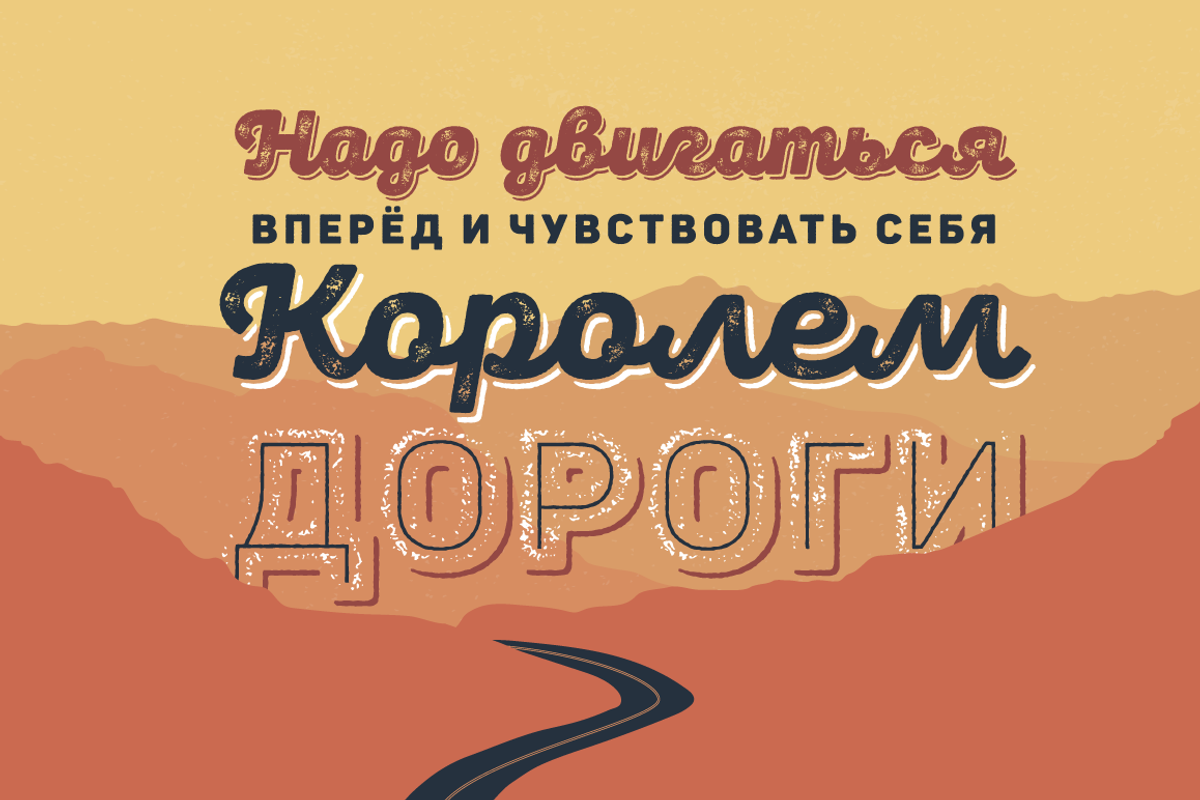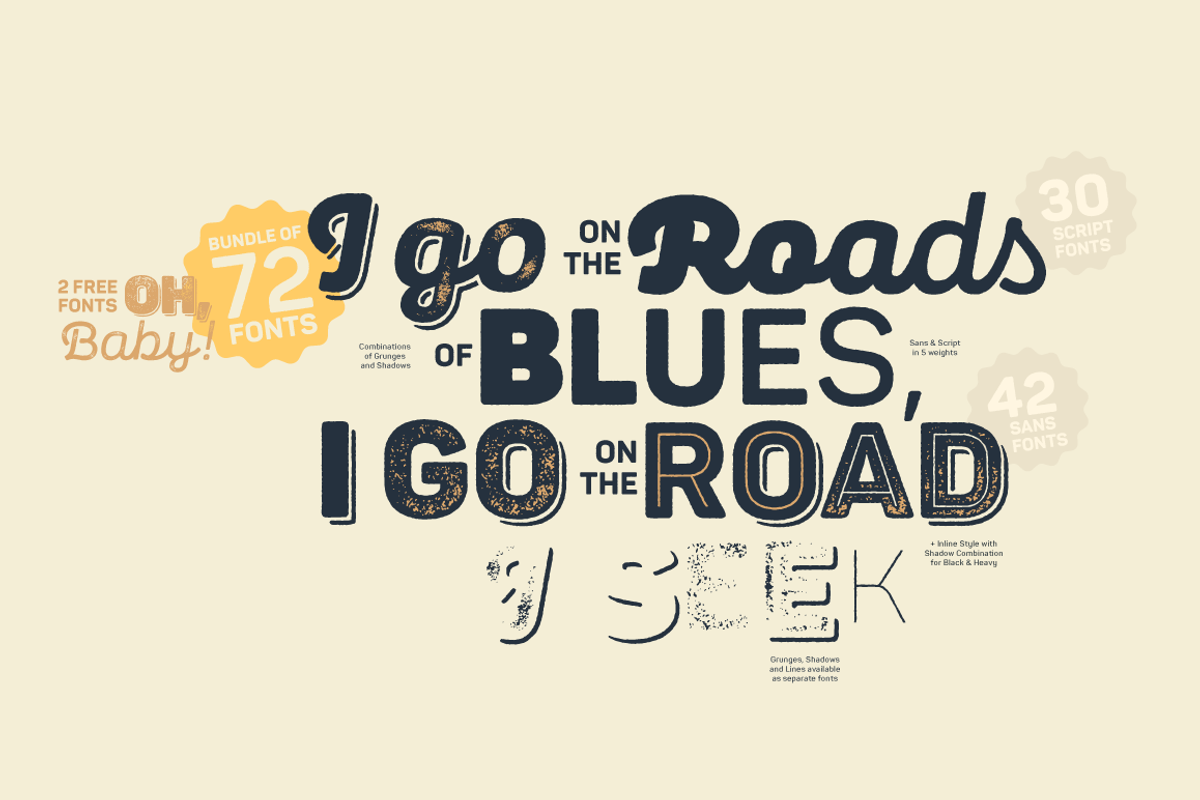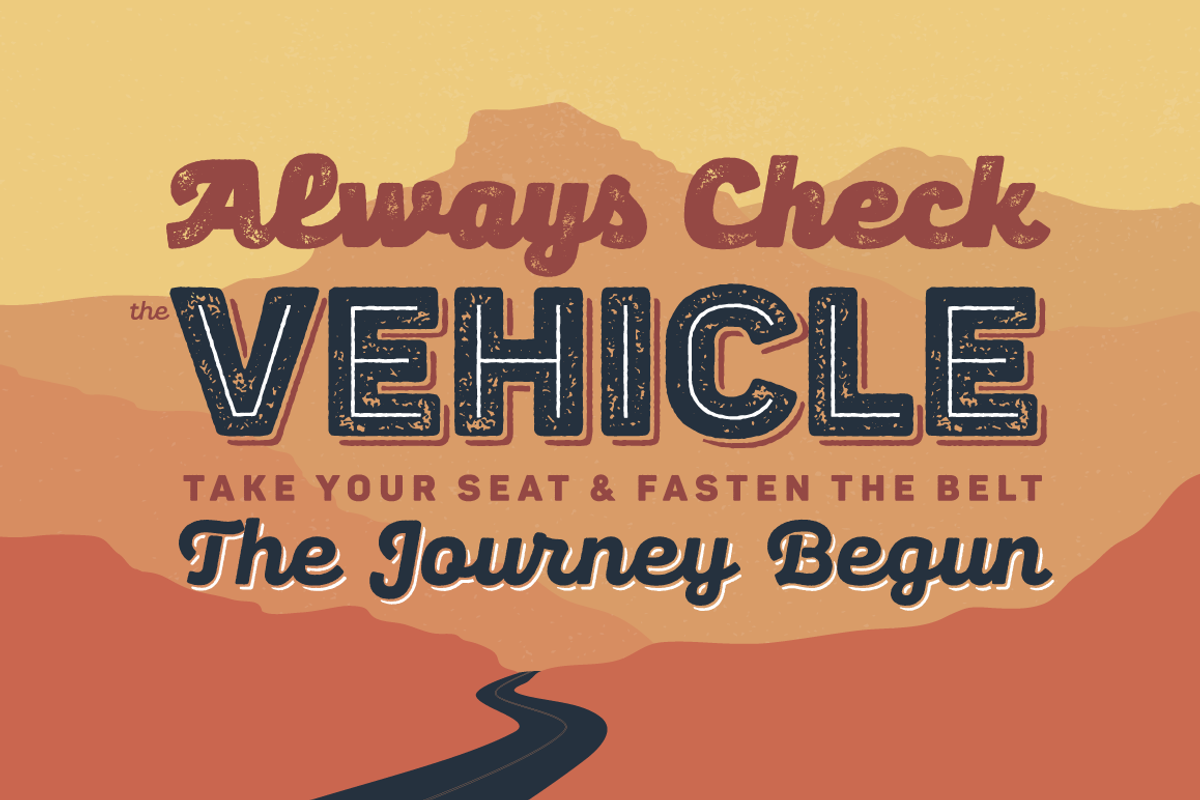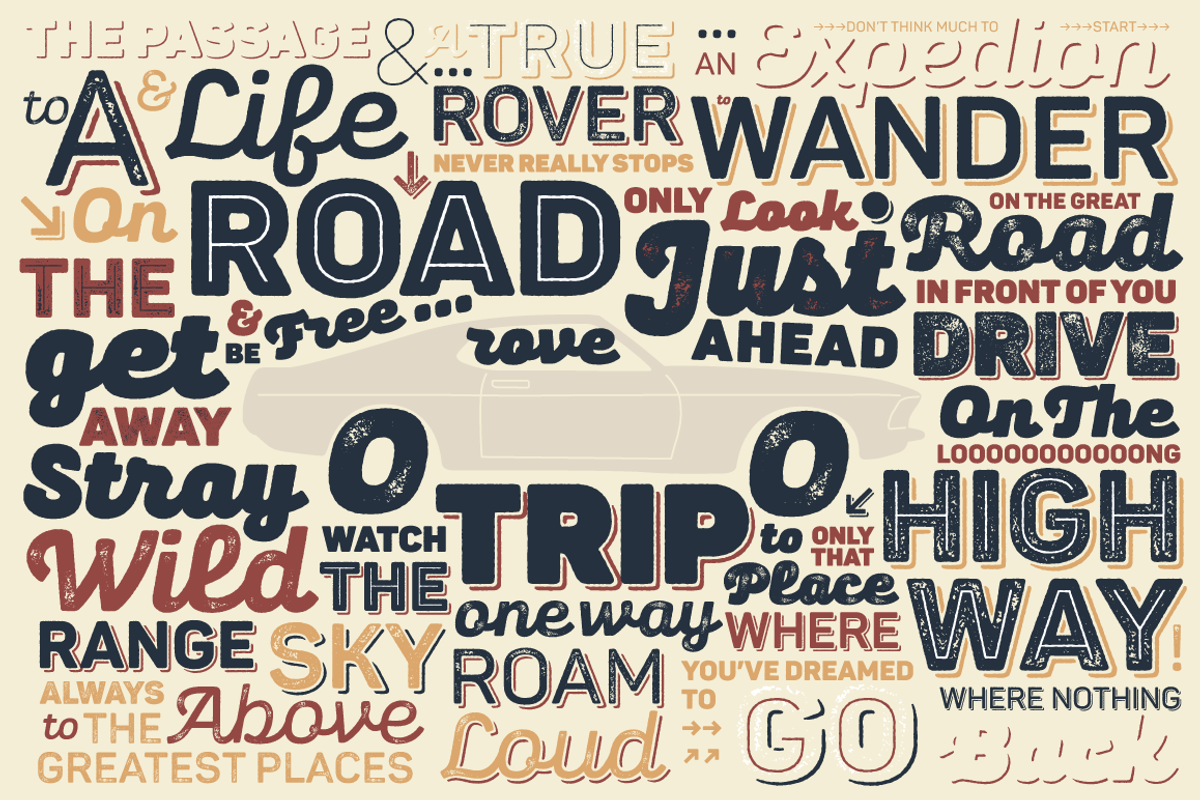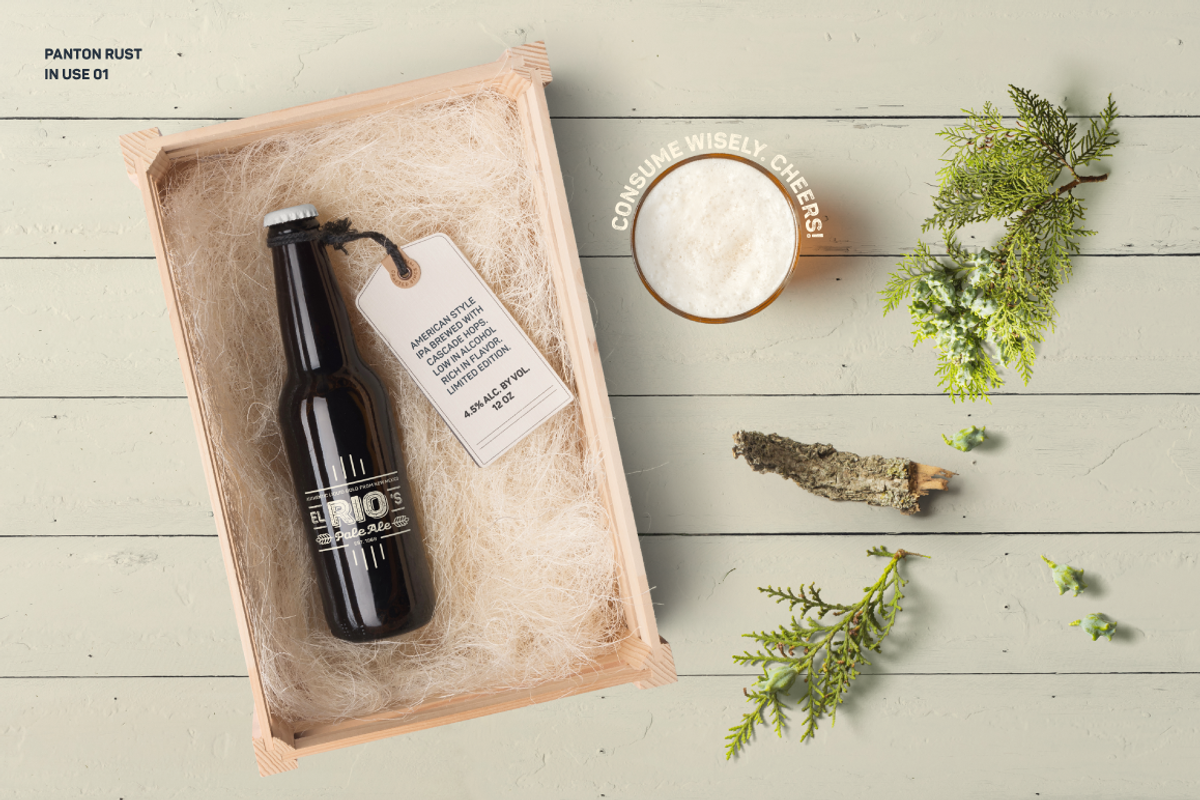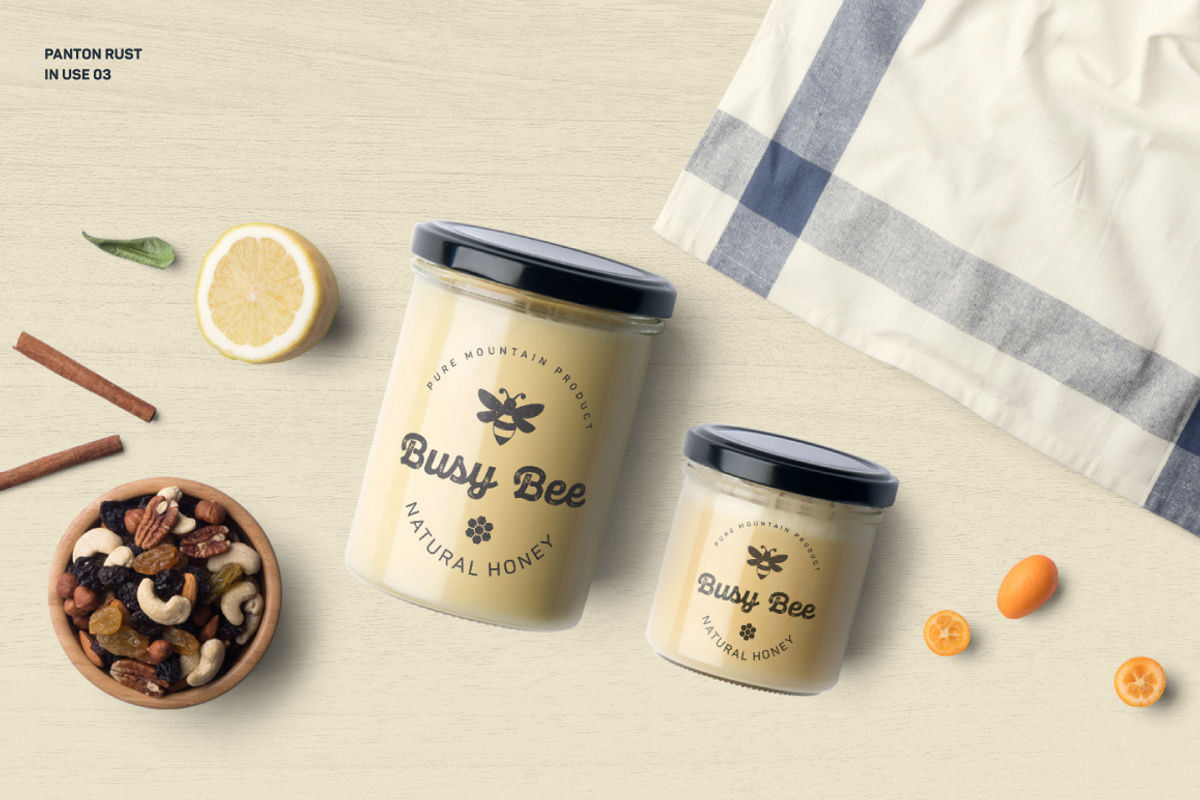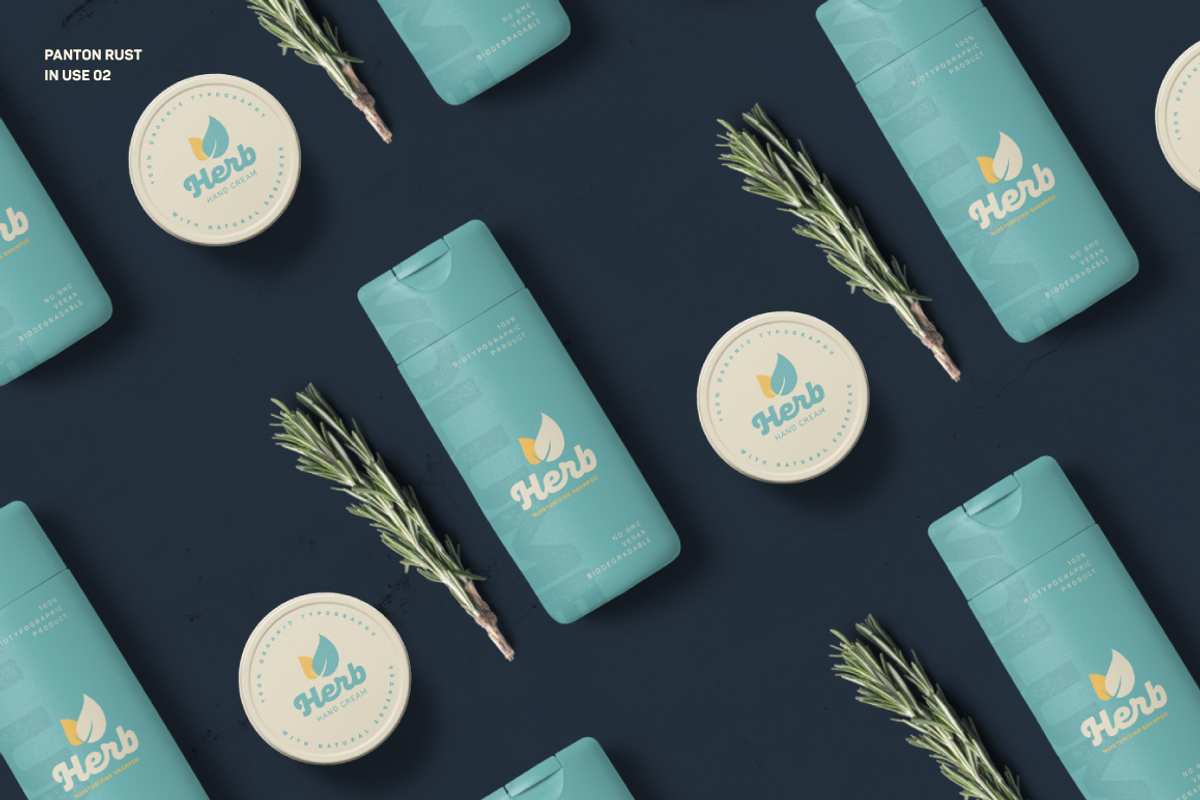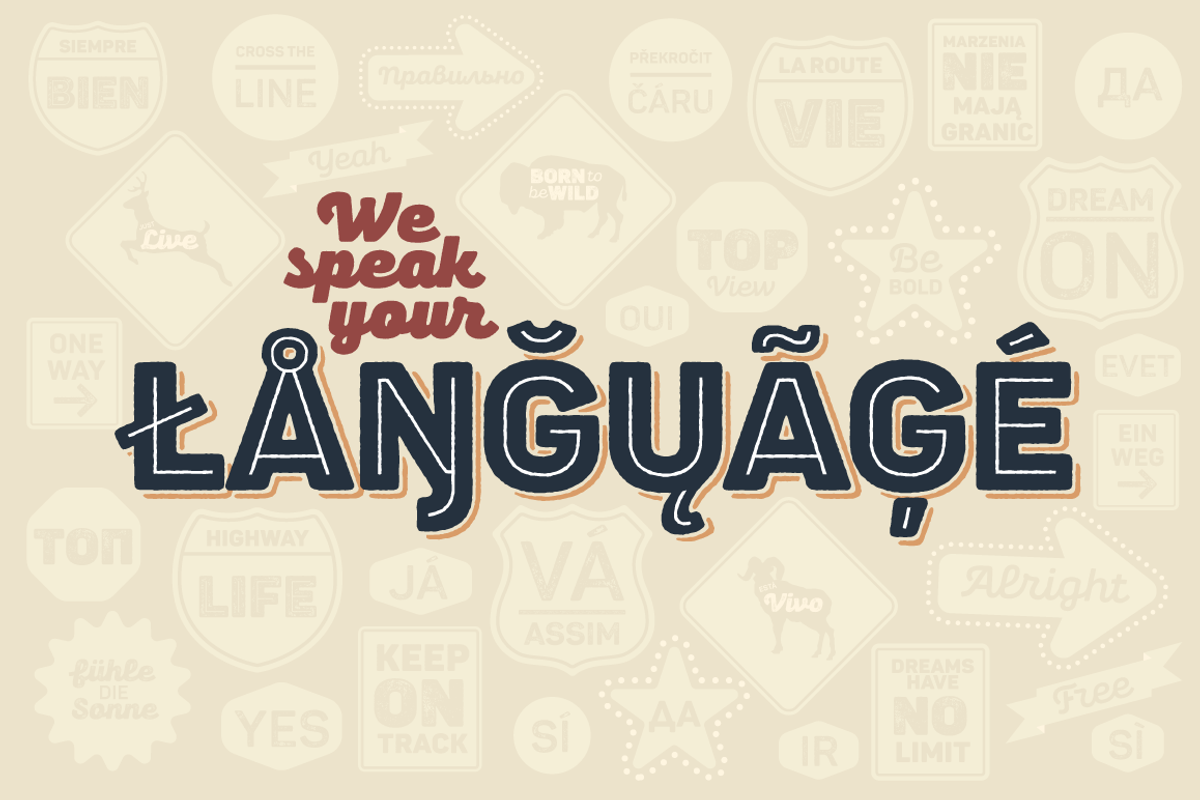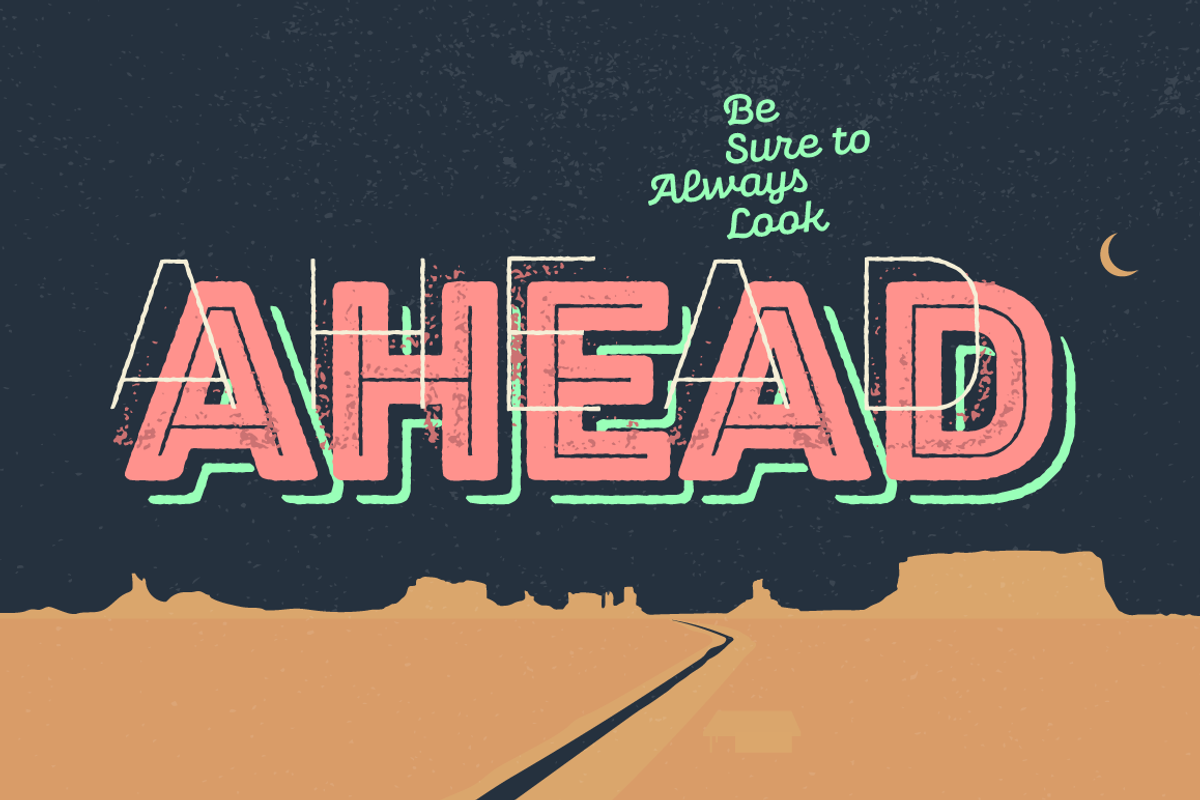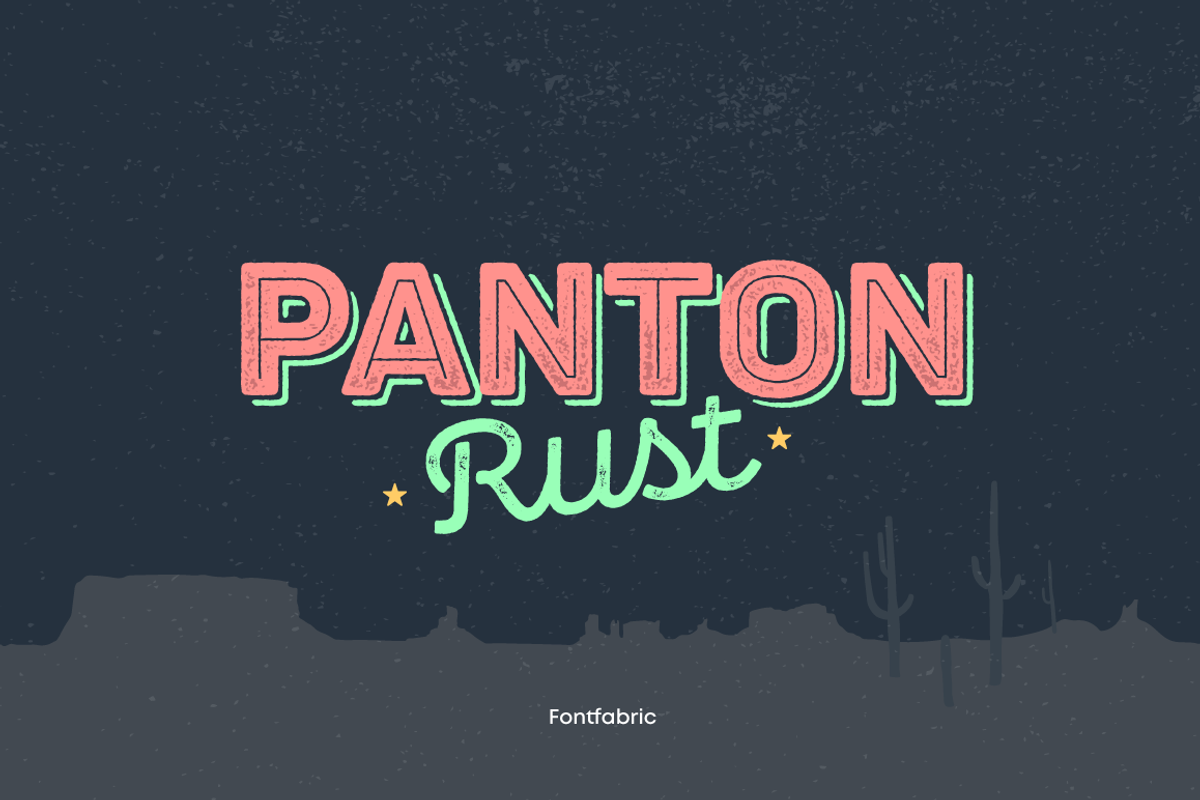
Panton Rust
The long-awaited Rust Bundle addition to our Panton type family has arrived, featuring the headliner Panton Rust and its trusted partner Panton Script Rust. Start your engines and get ready for 72 fonts, grouped into five weights ranging from SemiBold to Heavy, and including multiple Base combinations with different Shadows and Grunge Textures.
All of the above is also a part of the accompanying Panton Rust Script, whose natural flow is further emphasized with specifically adjusted Contextual Alternates. The list of OpenType features wouldn’t be complete without localizations, figures, fractions, superiors and inferiors, numerators and denominators, as well as tabular numerals for Panton Rust.
The Rust Bundle includes Extended Latin and Cyrillic coverage, providing support for more than 130 languages. This handcrafted package was created to bring about the authentic and original vintage type, making it especially suitable for any design that speaks of craftsmanship, a sublime human touch, and a mature signature with undeniable flavor.
In Rust we trust!
• Textures, Shadows and Inline versions of the fonts which can be combined for a multicolor effects
• 72 styles in total, including 42 fonts for Panton Rust and 30 fonts for Panton Script Rust;
• 5 weights from SemiBold to Heavy;
• Extended Latin and Cyrillic coverage with support for more than 130 languages;
• A broad set of contextual alternates and ligatures for Panton Script Rust